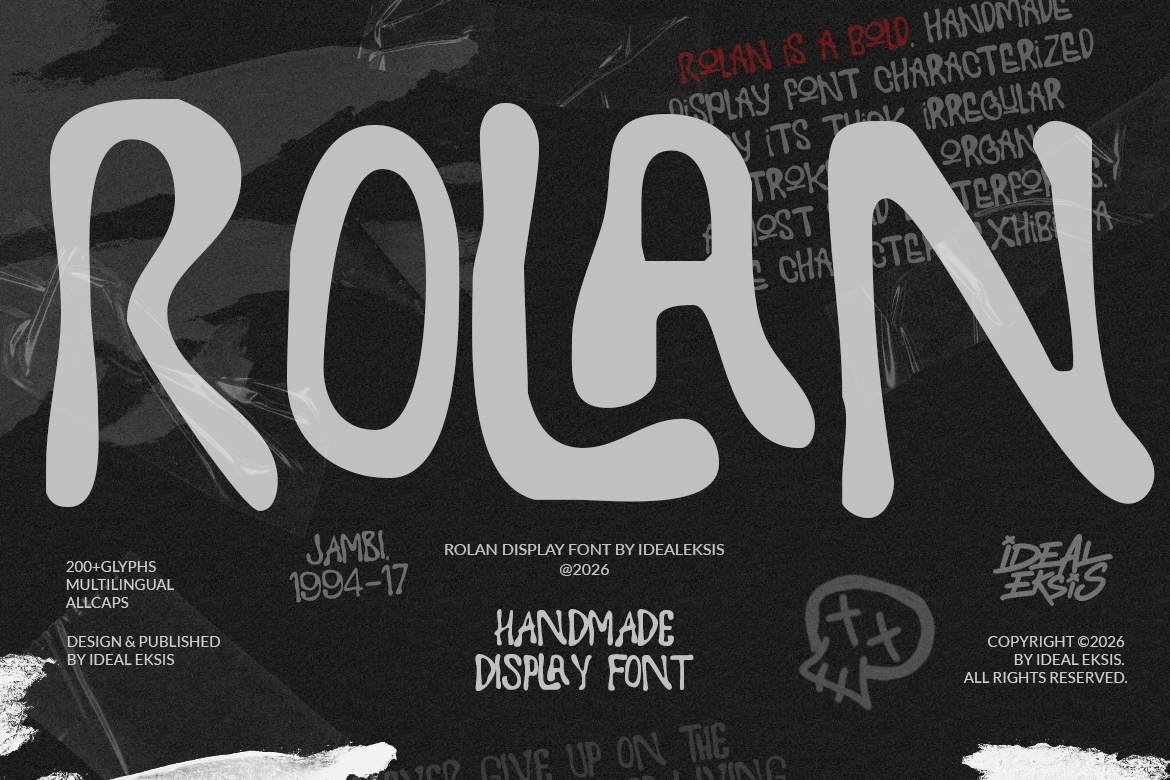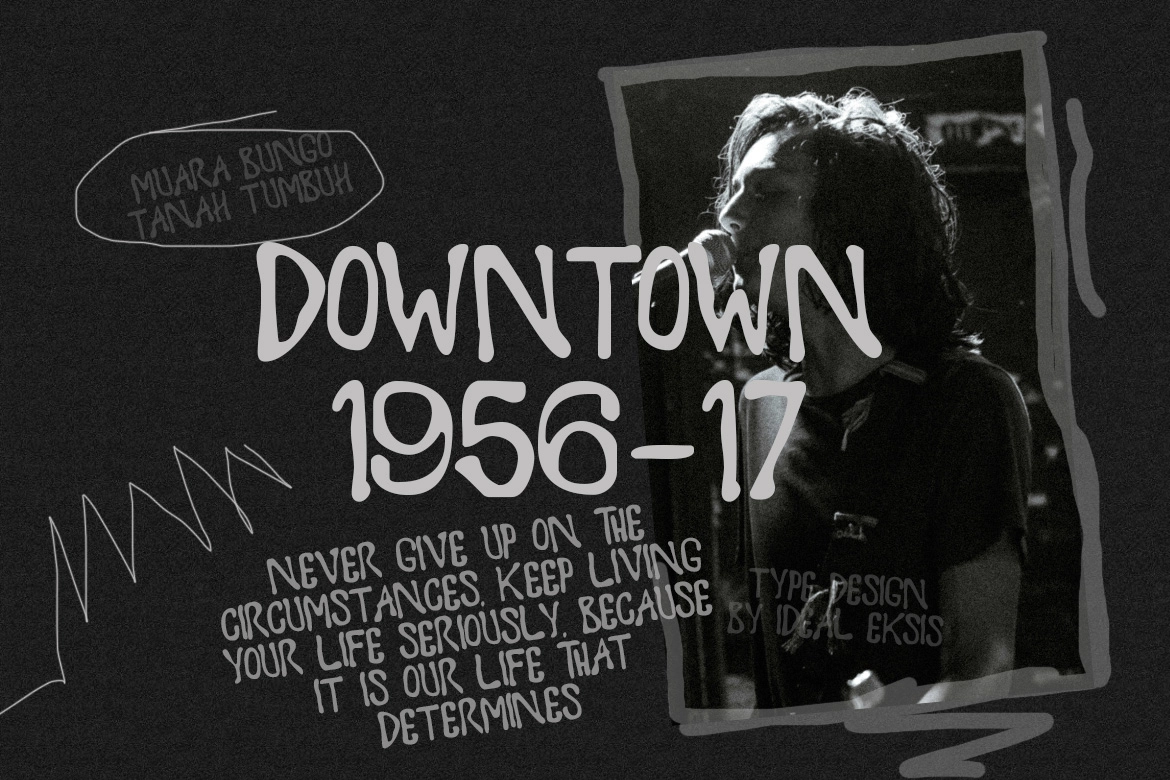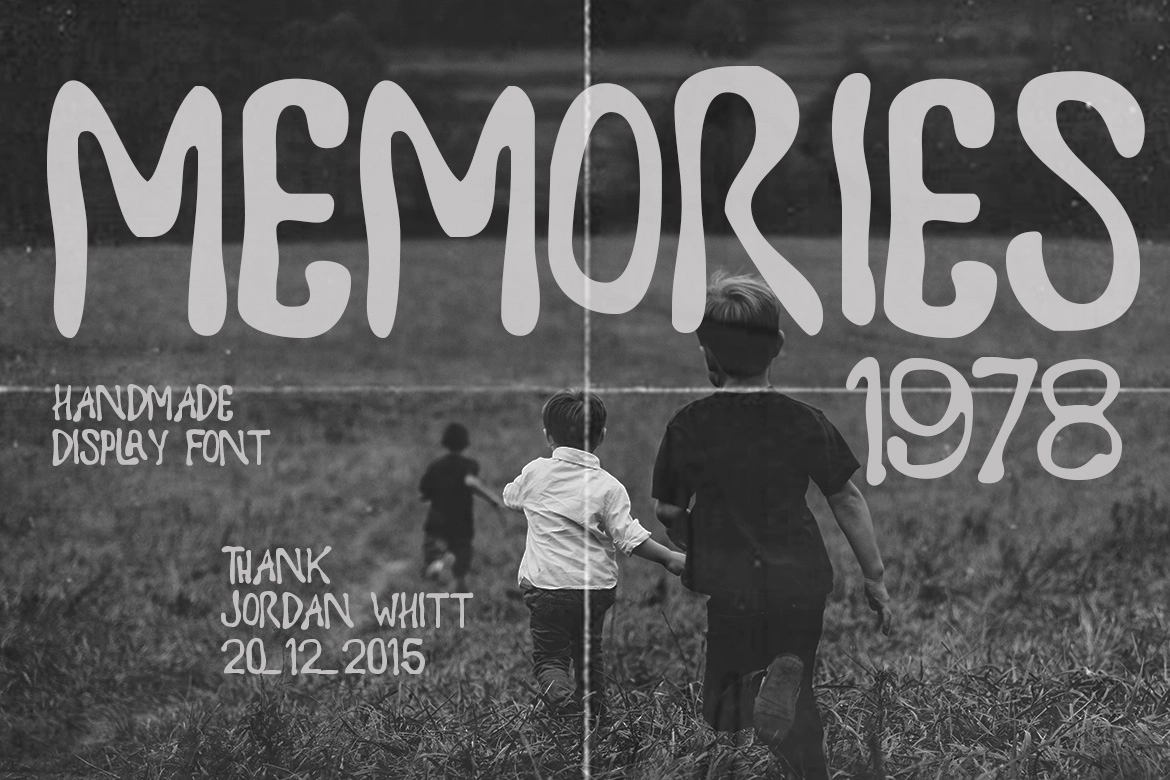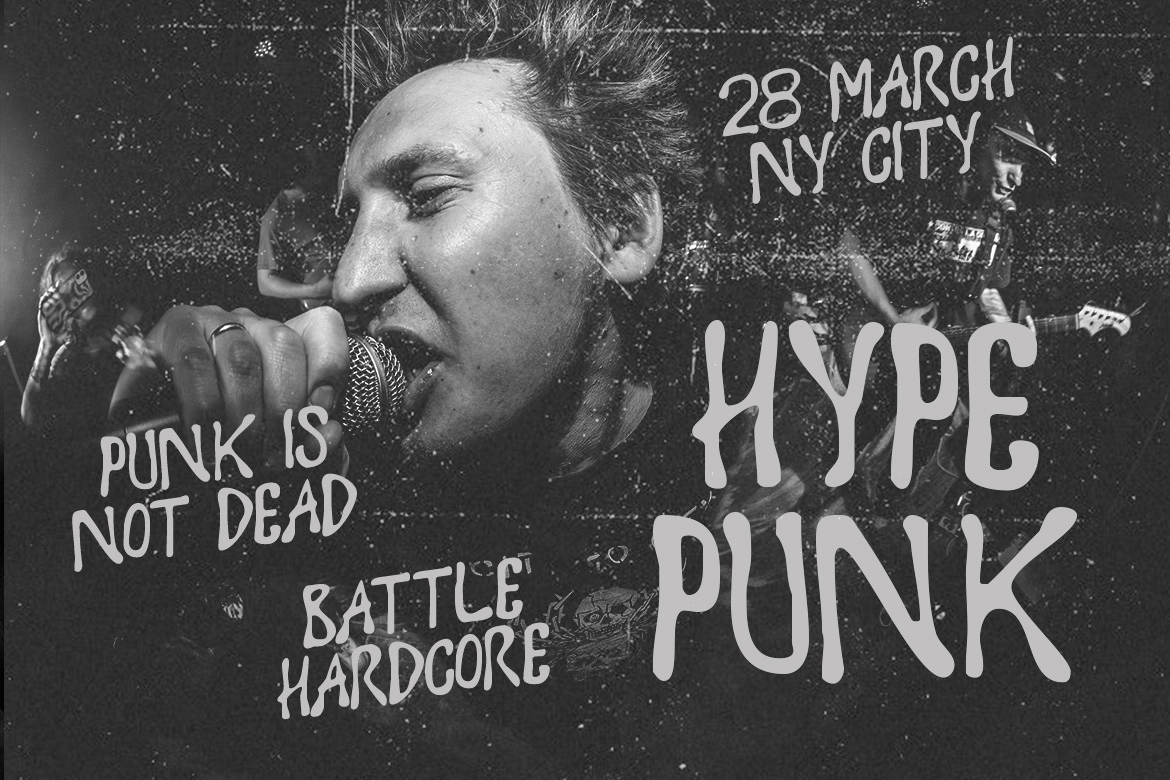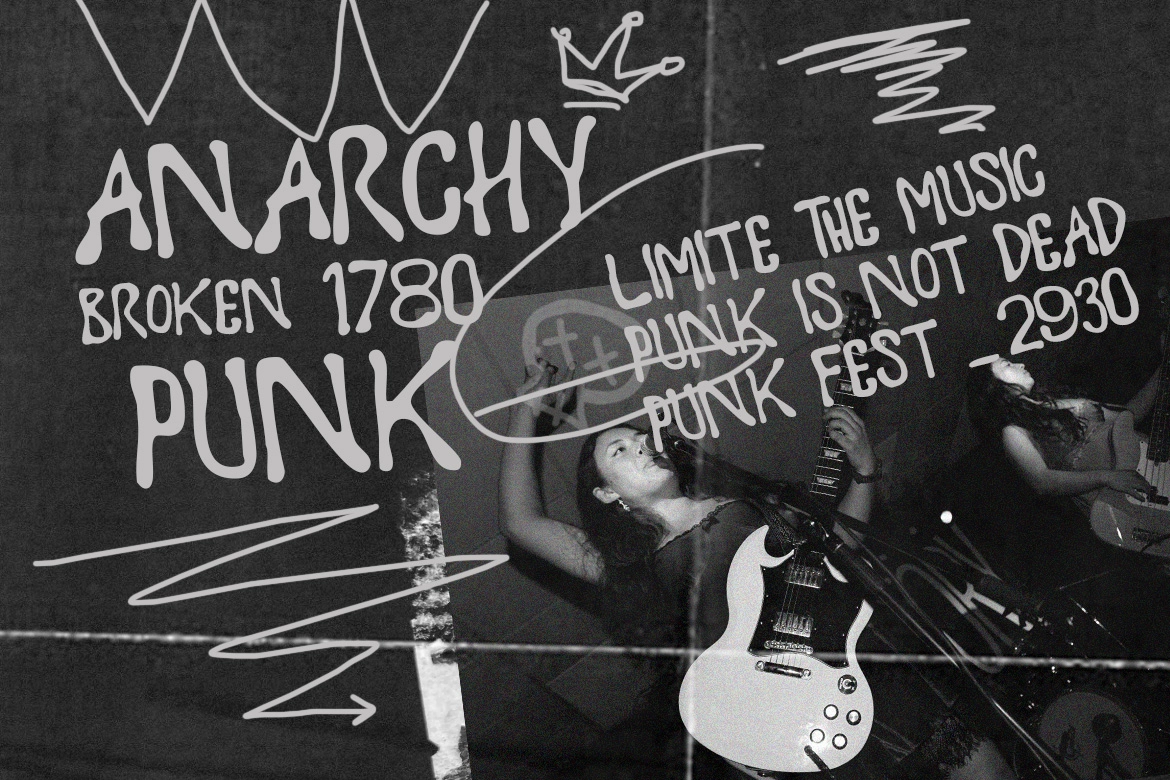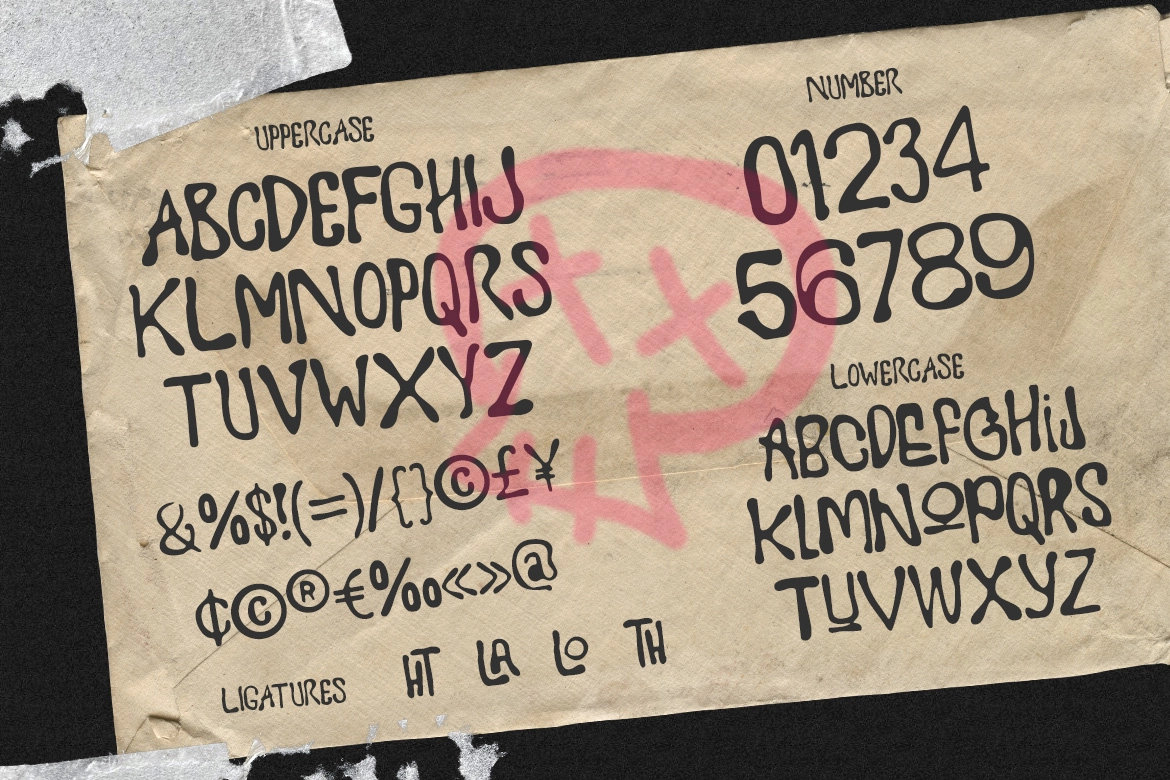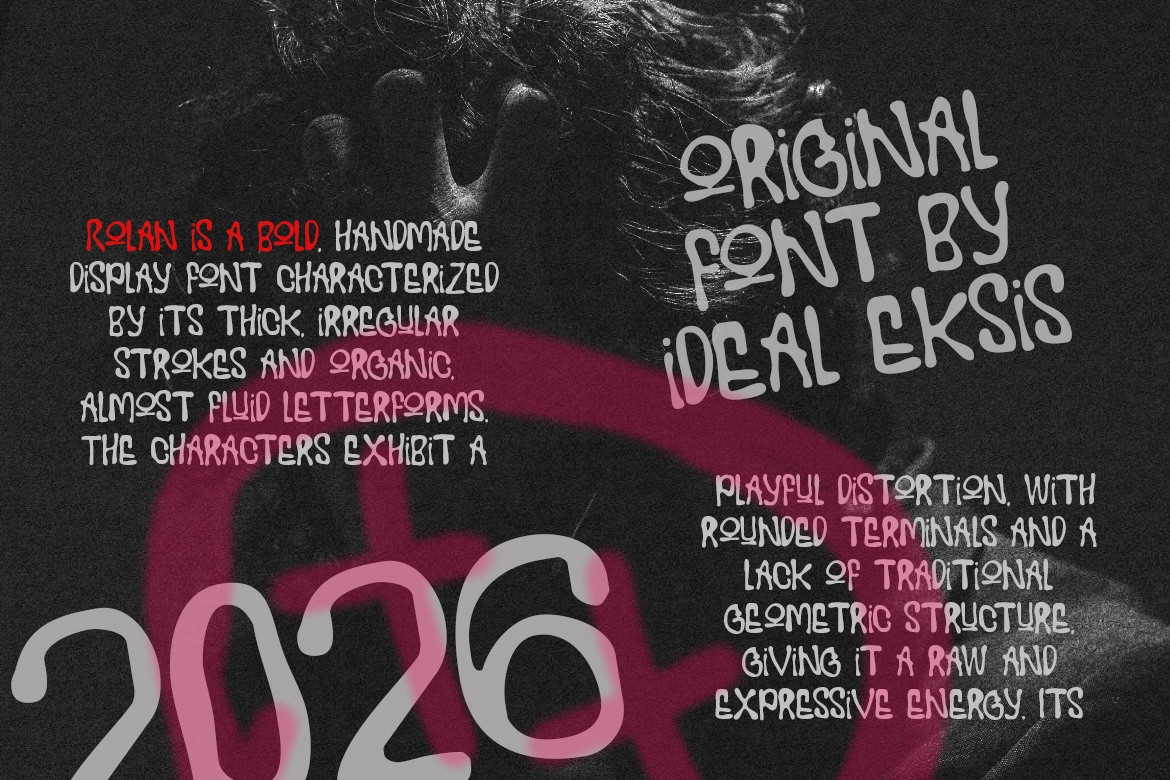
Rolan - Punk Display Font
Rolan – Punk Display Font is a bold, handcrafted typeface built with raw attitude and expressive energy. Inspired by underground zines, street posters, and DIY culture, Rolan features thick, uneven strokes and organically distorted shapes that feel spontaneous and rebellious. The fluid, marker-like construction and rounded terminals create a gritty yet approachable look, balancing chaos with personality.
Designed for high-impact visual statements, Rolan embraces irregularity and texture over rigid geometry. Its wobbly outlines and heavy presence make it perfect for music posters, streetwear branding, album covers, bold editorials, skate culture visuals, and expressive social media graphics. If you're looking for a typeface that feels loud, authentic, and unapologetically handmade, Rolan delivers pure punk character.
Feature:
- All Caps (Uppercase) character set
- Stylistic ligatures for dynamic letter combinations
- Numerals & punctuation included
- Strong multilingual support